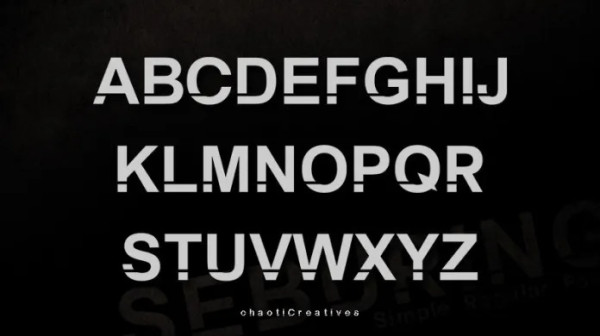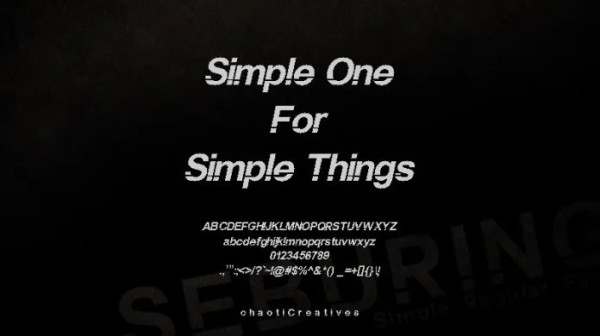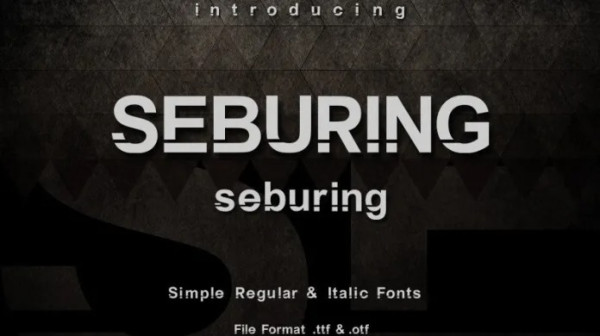
Seburing Font
Seburing Font is a display typeface. It comes in two different styles, normal and italic. It’s a simply designed font with a few aligned cuts on one side which give it a slightly different and unique look than most standard letters. This Seburing letter is planned to be a new innovation in appearance but not far from standardization like the letters that are already attached to our memories.